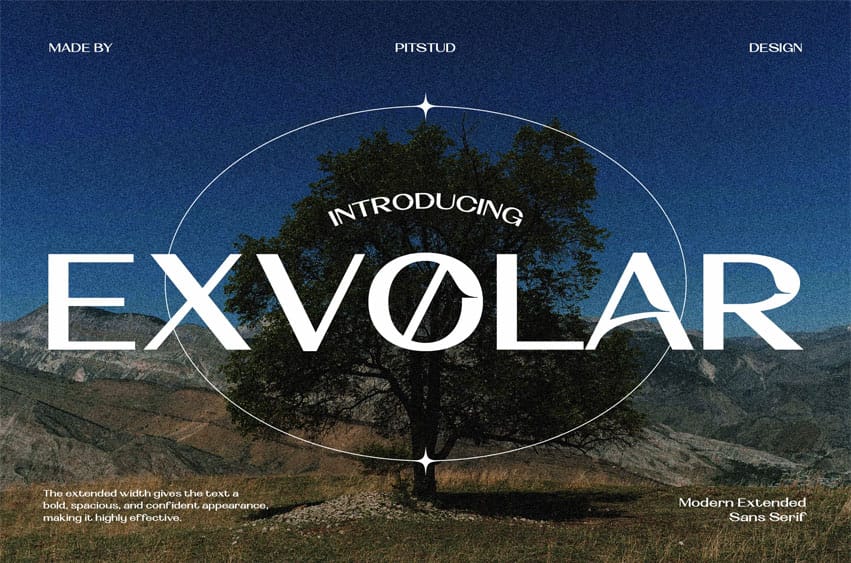
Exvolar Font Modern Logo Font is a sleek, versatile typeface designed to add a contemporary edge to your projects. With clean lines, geometric balance, and unique character shapes, Exvolar offers a stylish look ideal for branding, logos, and high-impact designs.
Perfect For Whether you’re creating a brand identity, product packaging, digital ads, or website headers, Exvolar blends clarity and sophistication. Its modern forms and refined details help businesses stand out with an elegant visual style.
Font Features
- Modern & Minimal Design: Clean, balanced letterforms with a sleek look.
- Complete Character Set: Uppercase, lowercase, numbers, punctuation, symbols.
- OpenType Features: Alternates, ligatures, stylistic sets.
- Multilingual Support: Supports languages including English, Spanish, French, German, and Portuguese.
Exvolar merges modern aesthetics with practical functionality, making it a striking and adaptable typeface for branding, advertising, and digital design.
- Brand Identity: Adds a professional, stylish touch to your business.
- Advertising & Marketing: Captures attention with bold messaging.
- Editorial Design: Creates sharp, eye-catching headlines.
- Product Packaging: Enhances labels with a modern look.
- Logo Design: Builds a strong, recognizable brand mark.